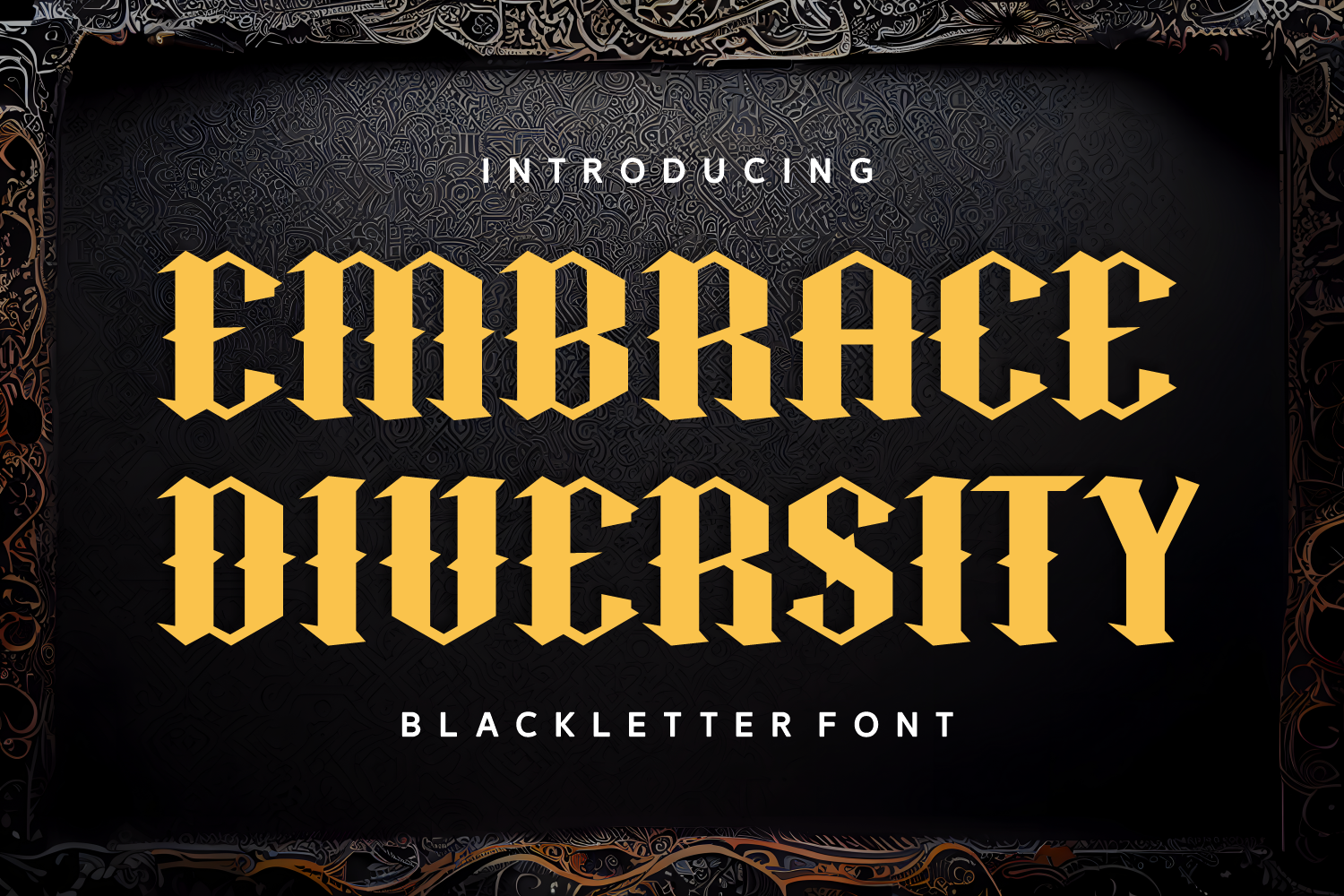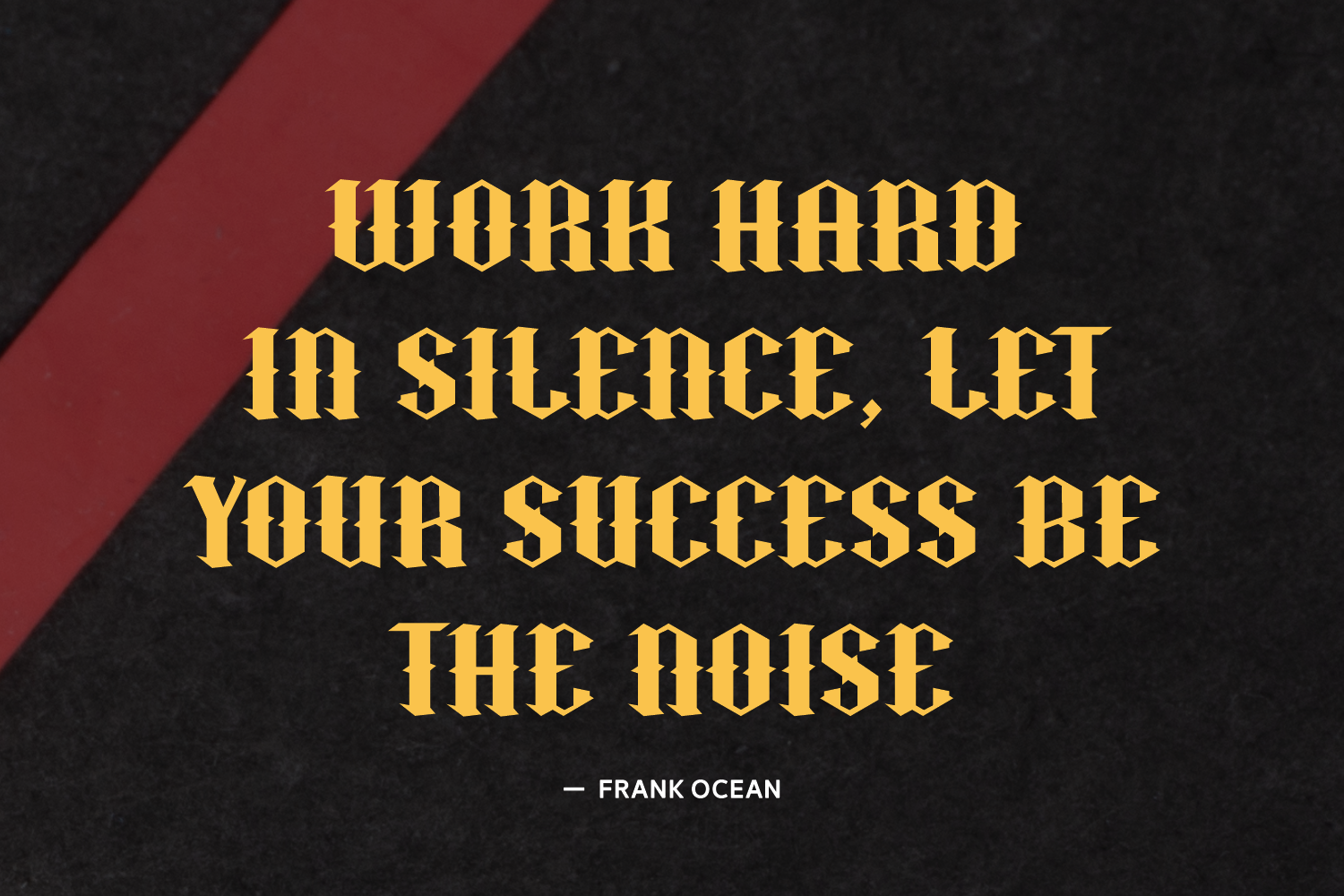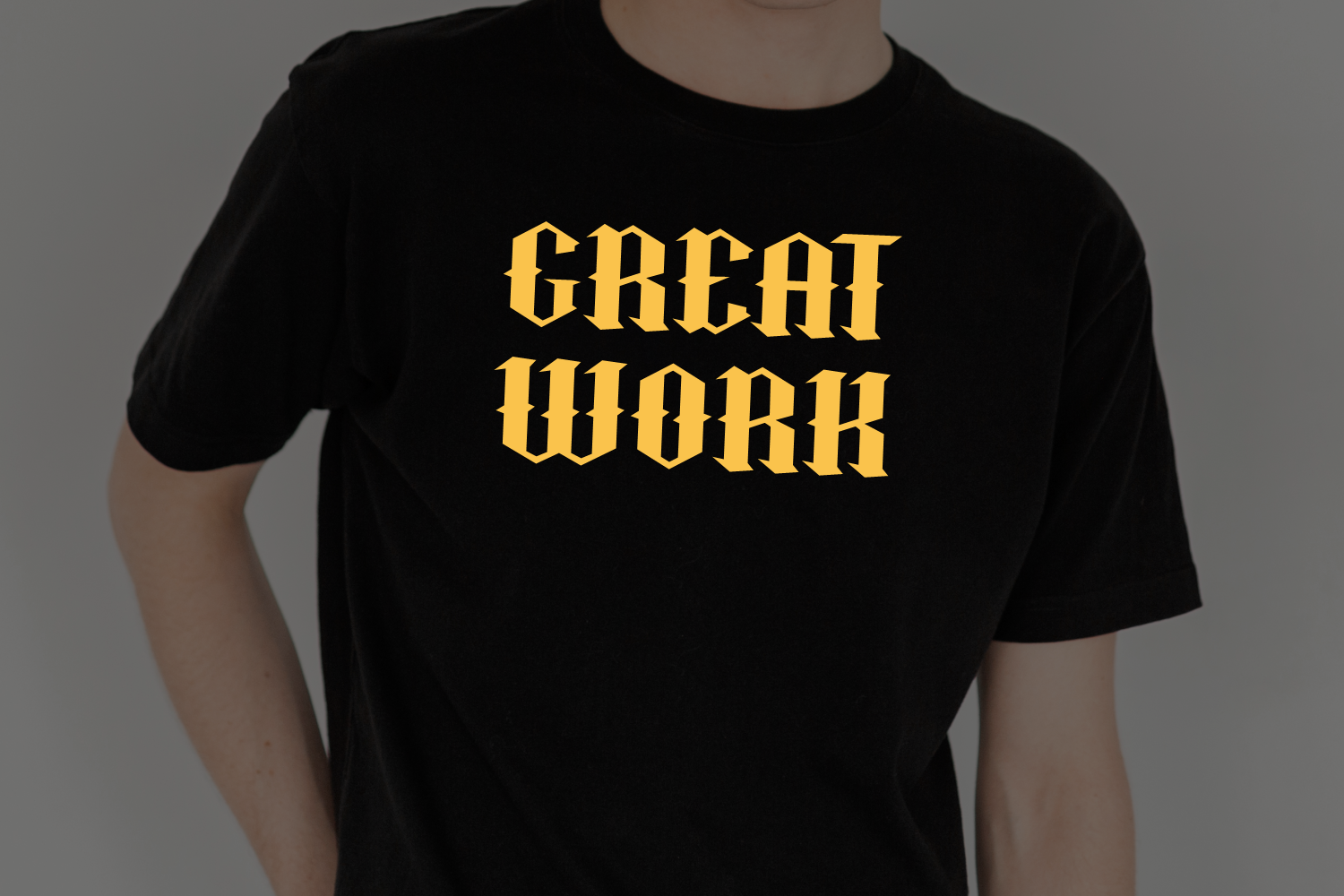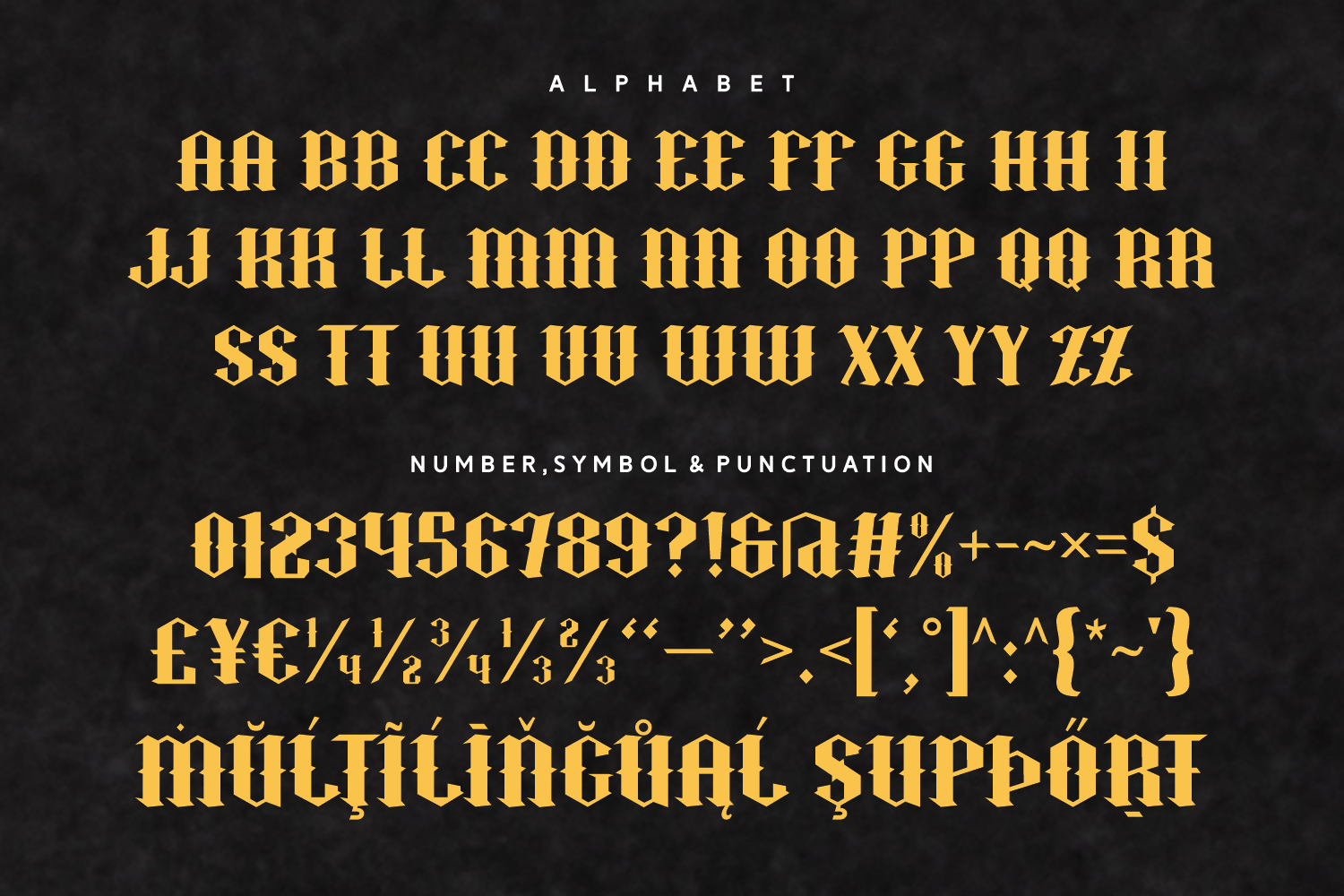
Embrace Diversity
Embrace Diversity is a bold, cultural blackletter font designed to make a statement. With its traditional sharp edges and commanding structure, it suits logos, protest art, apparel design, and modern gothic branding that speaks loud and proud. A typeface that’s bold in both form and message.